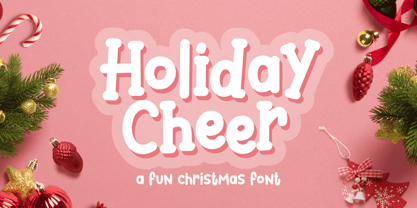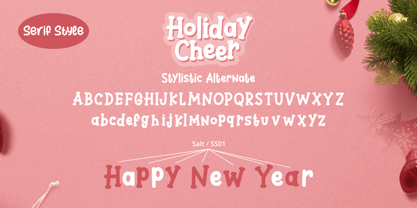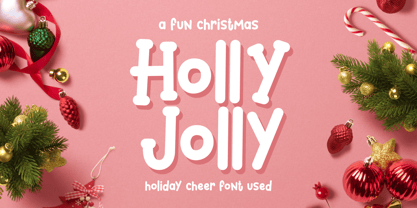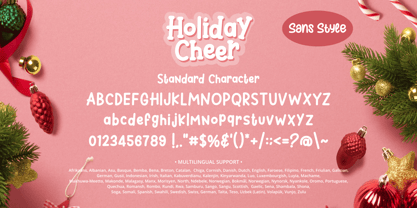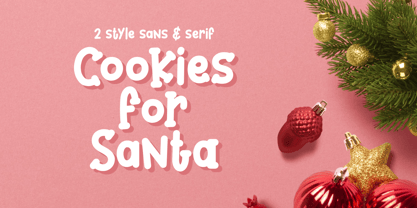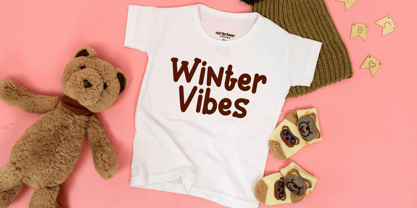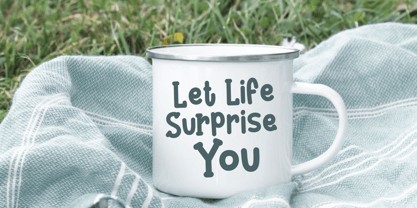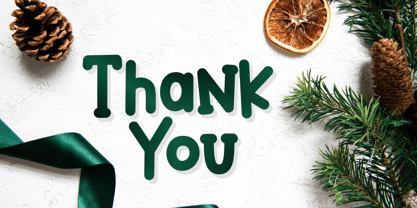
Holiday Cheer
Die Schriftfamilie Holiday Cheer wurde von Abdullah Mabhal entworfen und von Mabhal Studio veröffentlicht. Holiday Cheer enthält 1 Stile. Mehr über diese Familie
Holiday Cheer, a simple and uniquely designed display font that effortlessly stands out. With its fun style and laid-back feel, this versatile typeface is the ultimate choice for any creative project craving a casual, modern, or urban touch. Whether you are designing edgy streetwear, playful social media graphics, trendy packaging, or contemporary holiday merchandise, Holiday Cheer adapts beautifully to your vision. Its clean yet charismatic lines bring an energetic and friendly vibe to logos, posters, and casual branding, making your text instantly engaging and full of life.